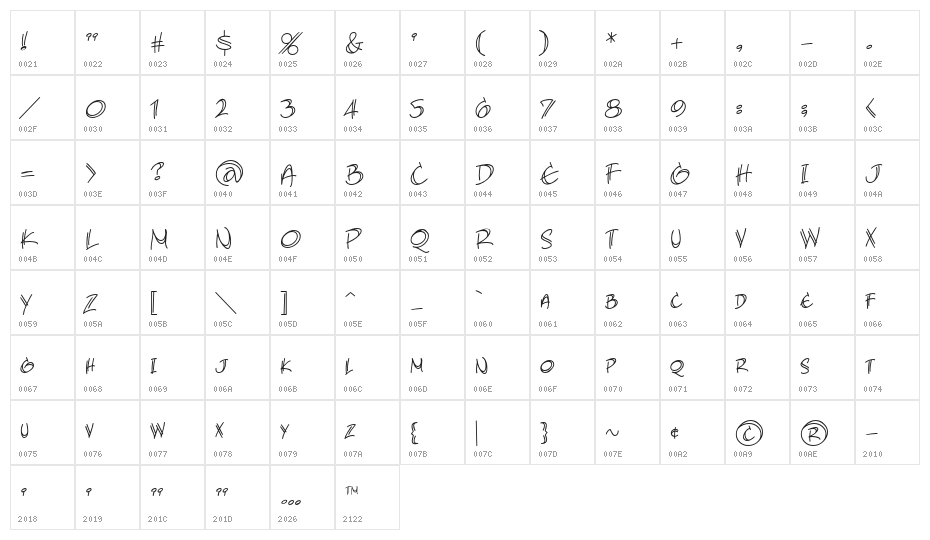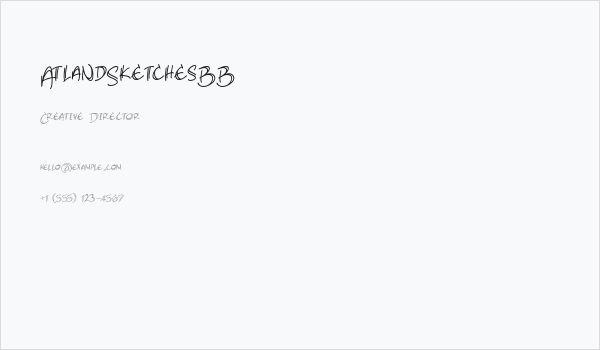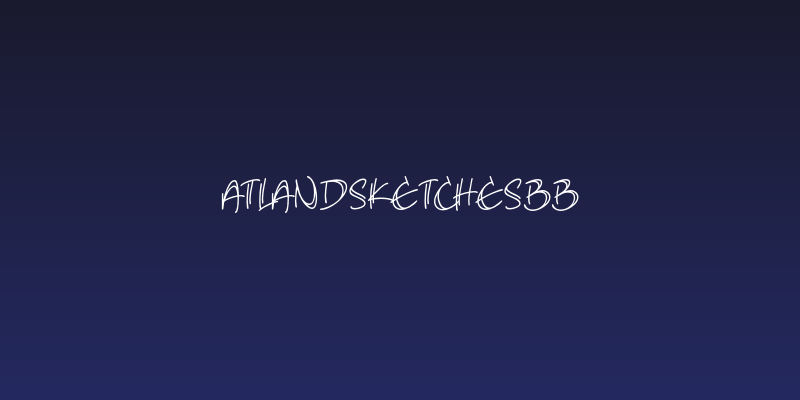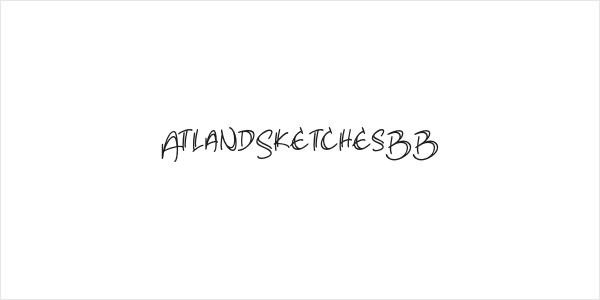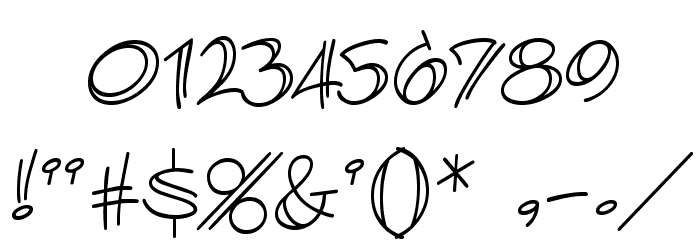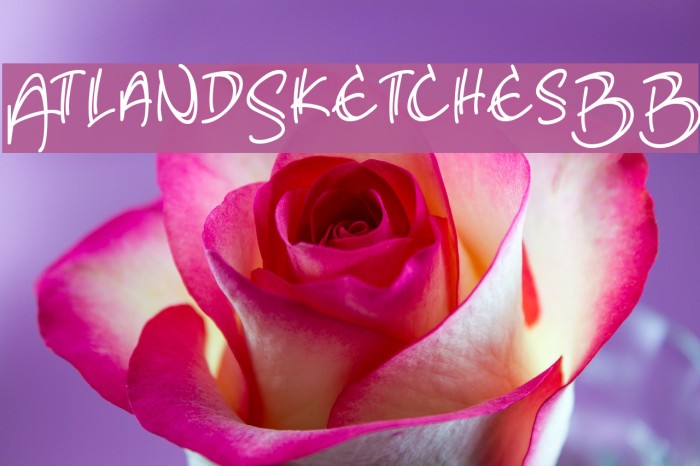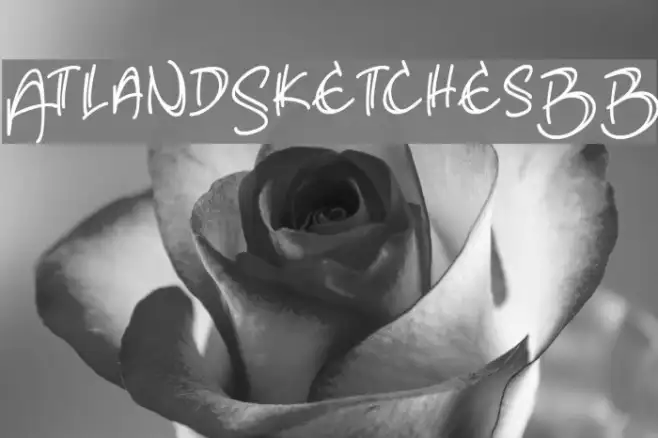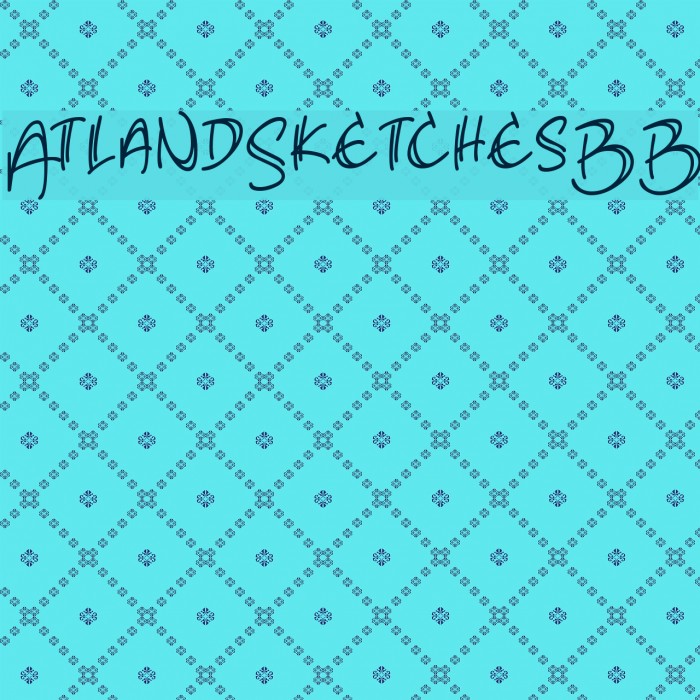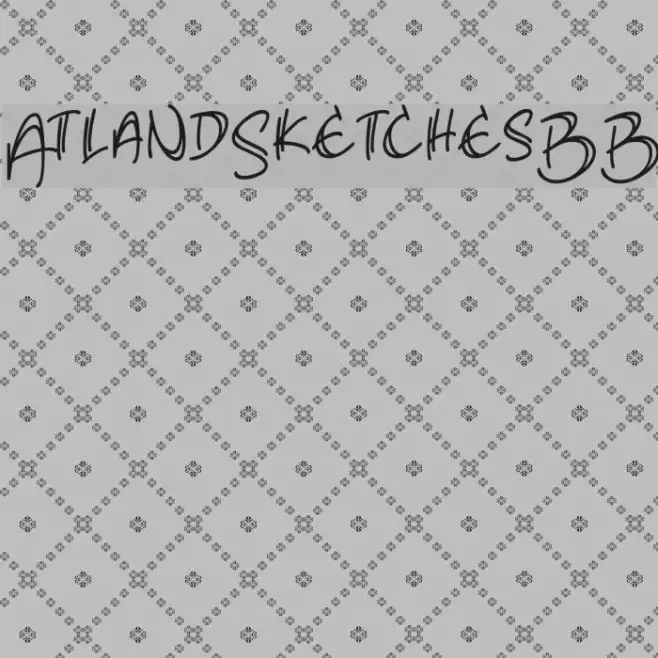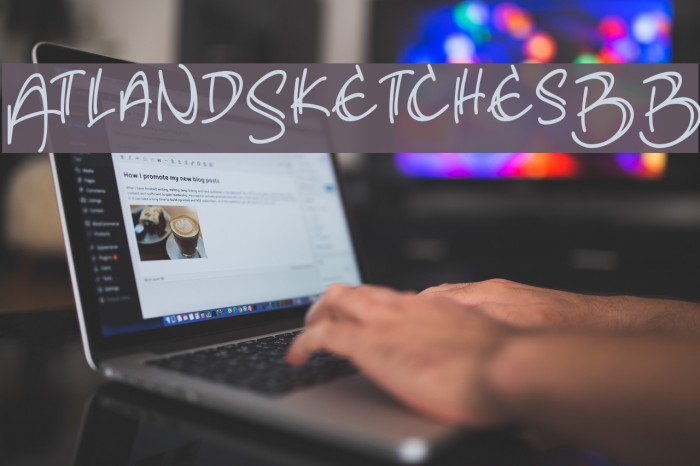
AtlandSketchesBB Font
| Caso d'uso | Headlines, Logos, Creative projects |
| Progetti proposti | Ideal for creative projects such as children's books, comic strips, greeting cards, and playful branding materials. |